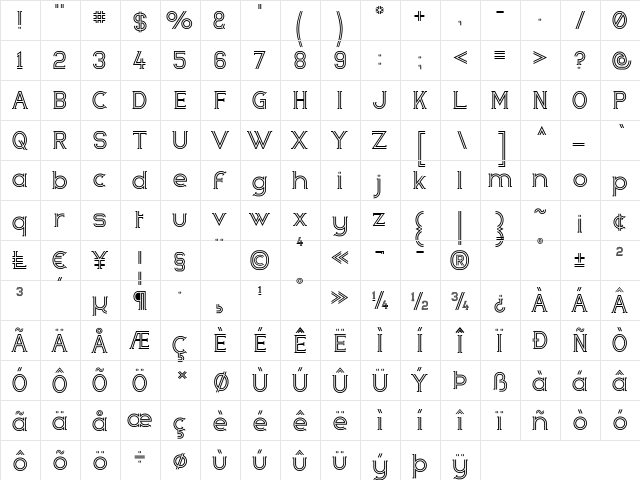
Zebrra Regular Font Preview
Zebrra Regular
| Designer | Graham Meade |
Design Context for Zebrra Typeface
Zebrra is a composed and adaptable typeface that performs quietly and consistently across a wide range of design contexts.